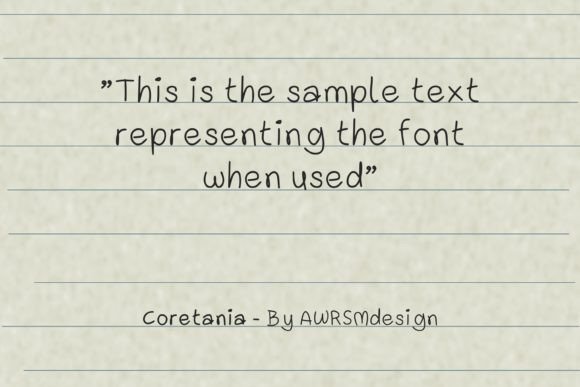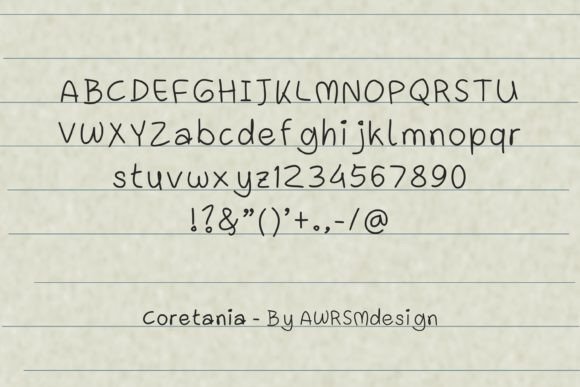
Coretania Font
About Coretania Font
Coretania is a fresh and natural handwritten font that brings a touch of authenticity and simplicity to your creative projects. With its unpretentious style, this font emerges as a valuable asset that has the potential to enhance a wide variety of designs, making it an essential addition to your fonts’ library.
The freshness and naturalness of Coretania make it a versatile choice for diverse topics and themes. Its unassuming yet distinct style adds a unique charm to any creation, whether you’re working on branding, invitations, social media graphics, or other design projects. Coretania stands out as a font that effortlessly elevates the visual appeal of your work.
The handwritten nature of Coretania conveys a sense of authenticity and a personal touch, making it well-suited for projects that require a genuine and approachable aesthetic. Its versatility extends to various design applications, making it an excellent choice for both formal and creative projects.
Incorporating Coretania into your projects is an invitation to infuse them with a fresh and natural vibe. This handwritten font becomes a reliable tool, ready to add character and authenticity to your designs, making them stand out with a touch of simplicity and uniqueness.
In summary, Coretania is more than just a font; it’s a fresh and natural design asset that brings authenticity to your projects. With its handwritten style and unpretentious charm, Coretania stands ready to be the perfect companion for a variety of creative endeavors, making your designs genuine, visually appealing, and uniquely crafted.